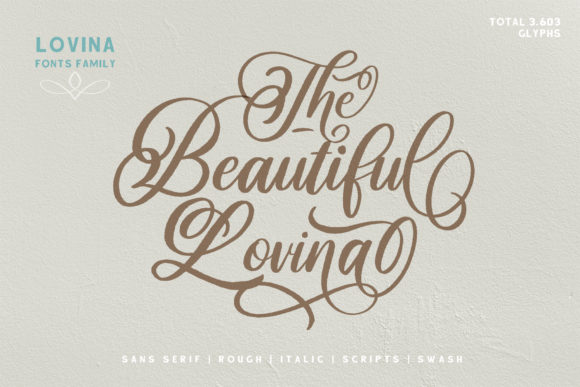
Immerse yourself in the world of calligraphy with Lovina Family Font, a captivating handwritten font family that will transform your creative visions into breathtaking realities.
Lovina Family Font is a masterpiece of digital artistry, meticulously crafted by Alit Design to capture the essence of elegance and charm. With its sweeping strokes and playful ligatures, this font family will add a touch of sophistication and personality to your designs.
Indulge in a symphony of styles with Lovina Family Font's diverse collection of weights and styles. From the delicate finesse of Hairline to the bold confidence of Black, each weight exudes its own unique charm. The italic styles add a touch of grace and fluidity, inviting your designs to dance off the page.
Effortlessly express your creativity with Lovina Family Font's extensive character set. Adorned with over 1000 glyphs, including stylish alternates, ligatures, and swashes, this font family grants you unparalleled freedom to explore your imagination.
Discover a font family that speaks to your soul. Lovina Family Font's captivating beauty and versatility make it the ideal choice for a wide range of projects, from heartfelt invitations and elegant logos to stunning social media posts and eye-catching branding.
With Lovina Family Font, the possibilities are limitless. Let your creativity flourish as you craft enchanting designs that leave a lasting impression. Embrace the magic of Lovina Family Font and transform your artistic dreams into tangible masterpieces.